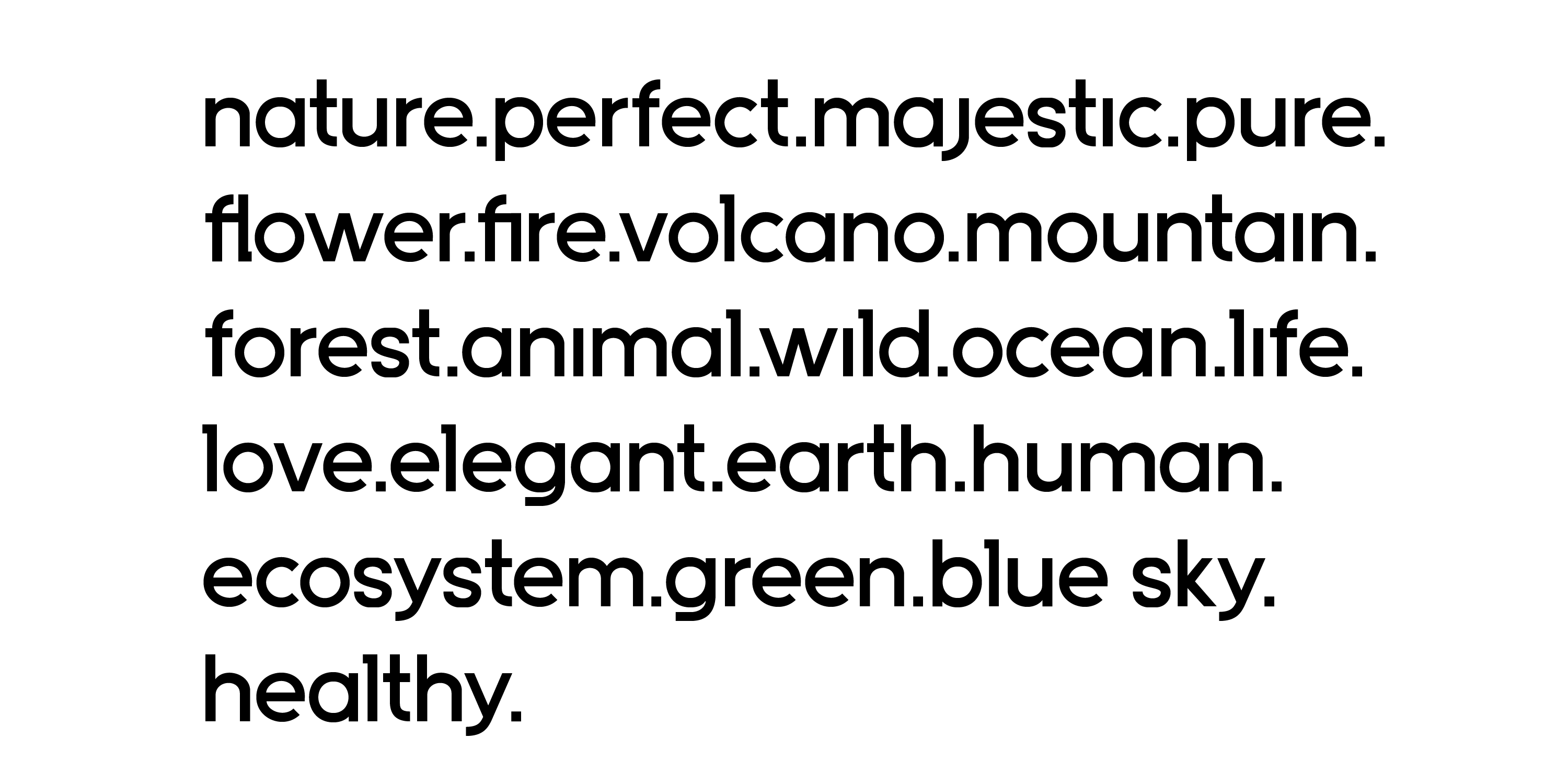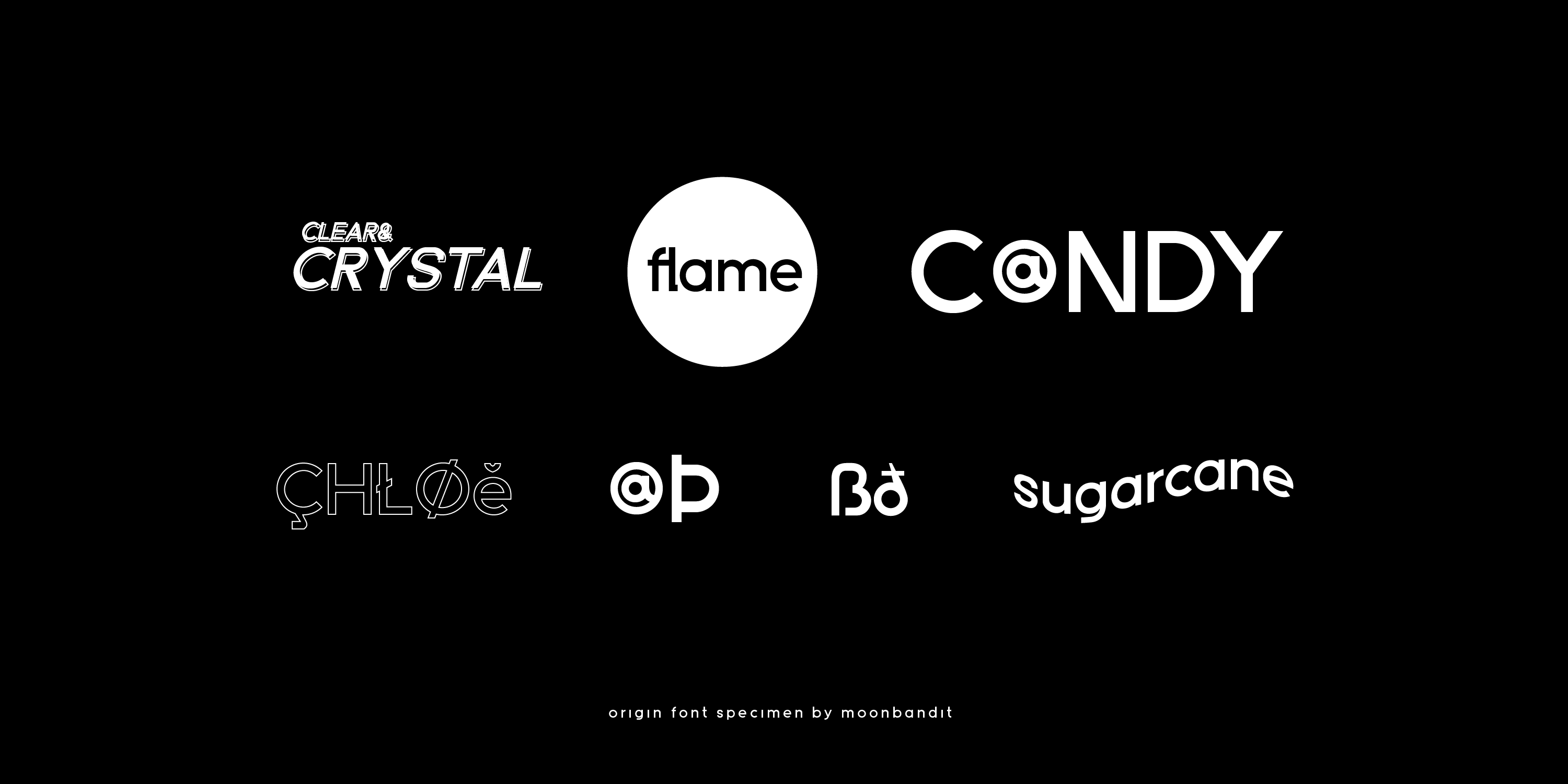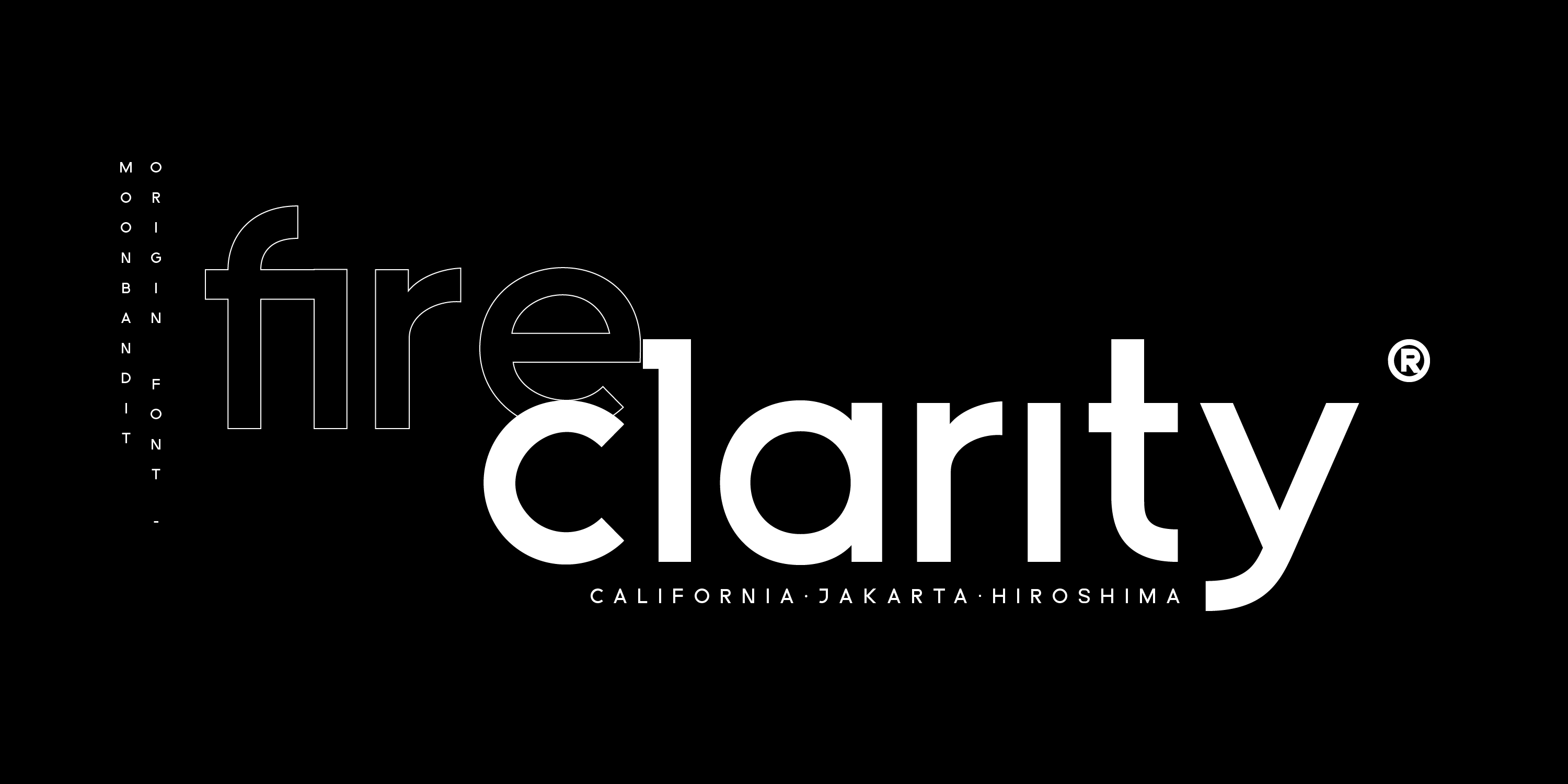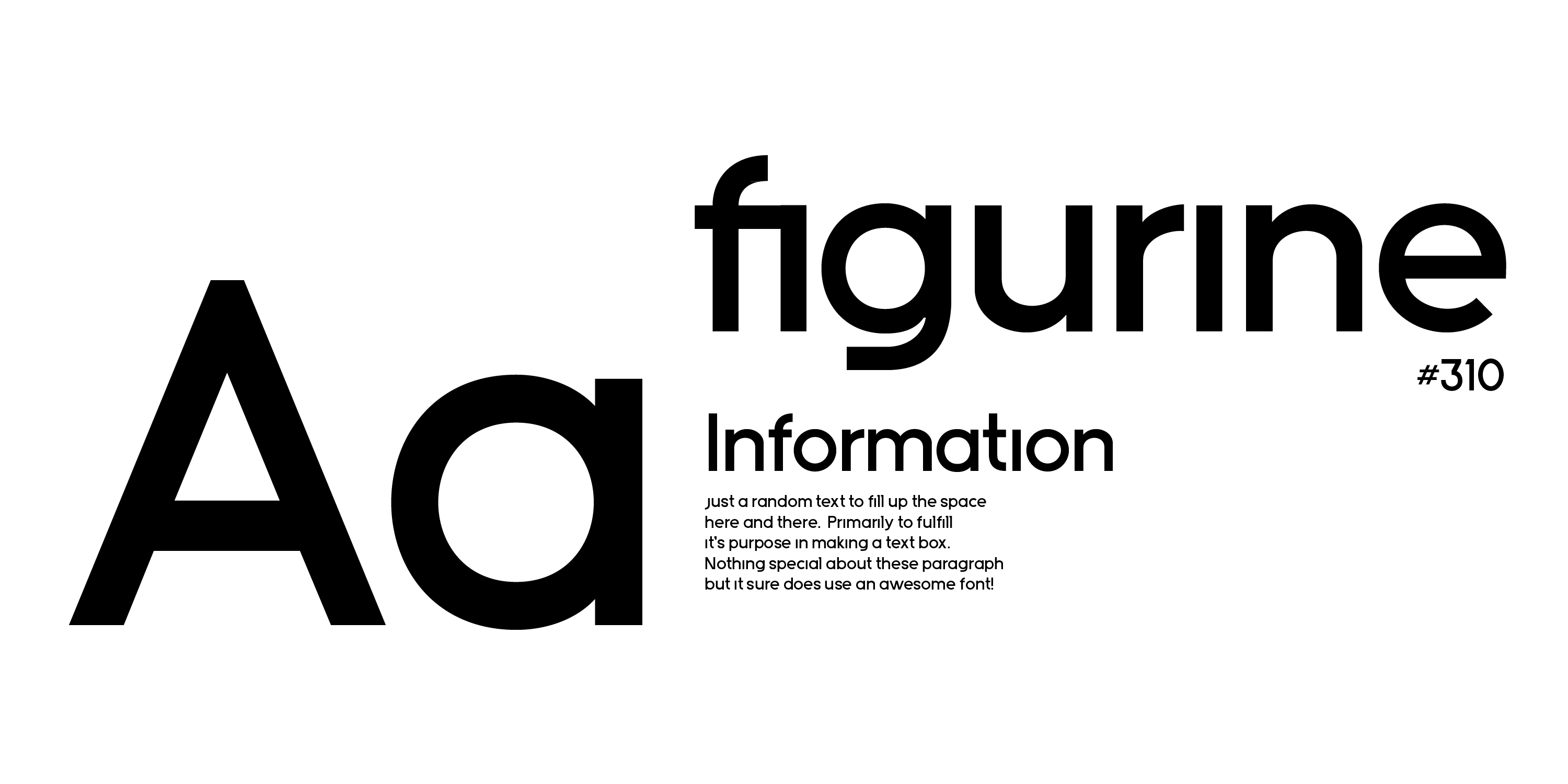
MBF Origin
It is believed that the primordial soup is the source of all living things
Origin, a multi purpose, clean, sharp, and modern font. This typeface is very versatile. Perfect for headline, titling, poster, logotype, body text and many more.